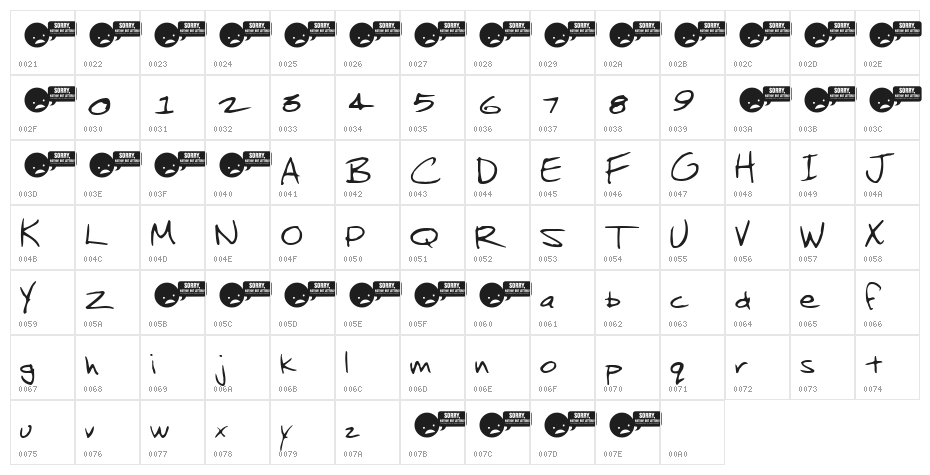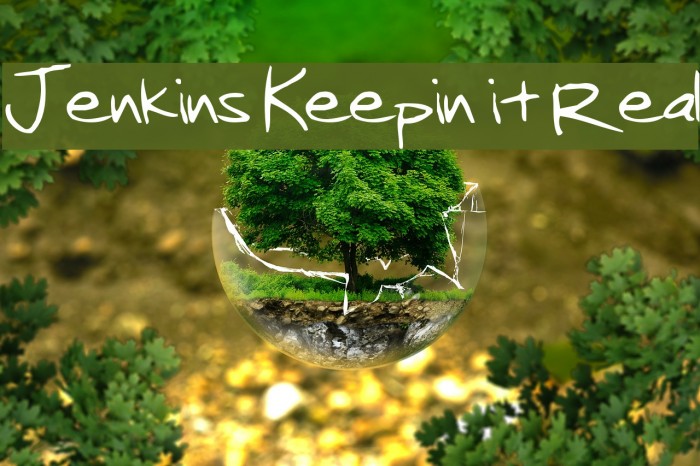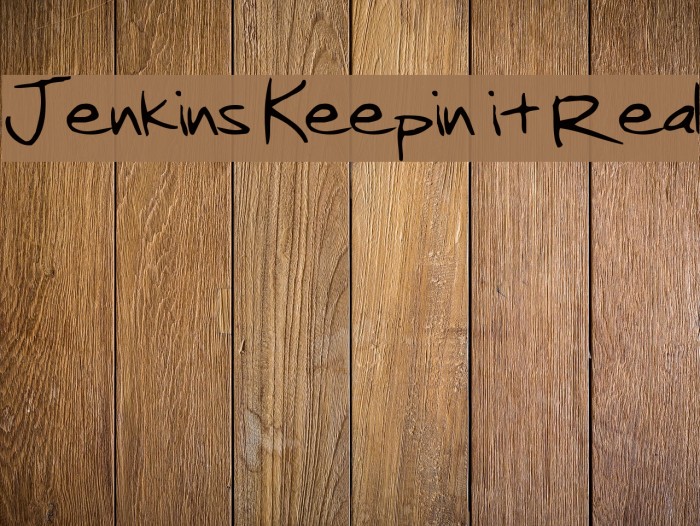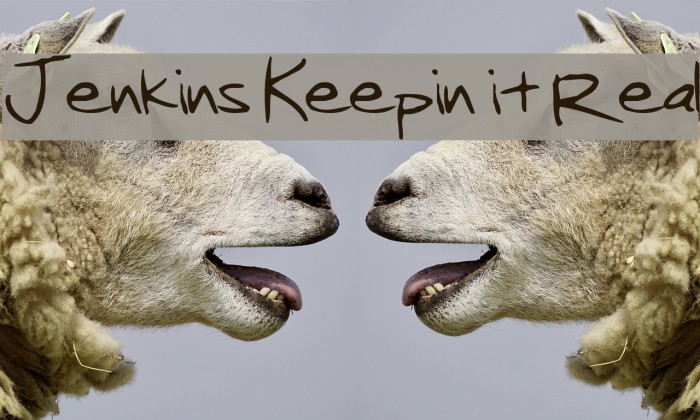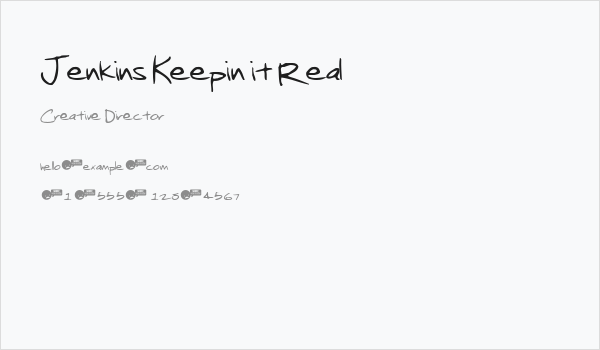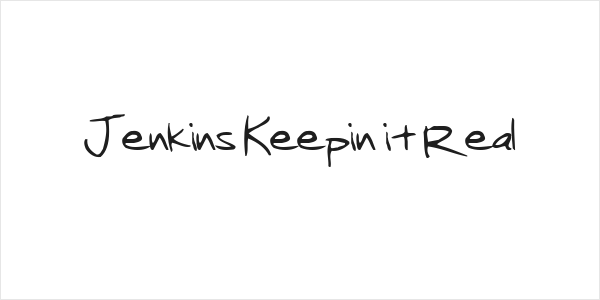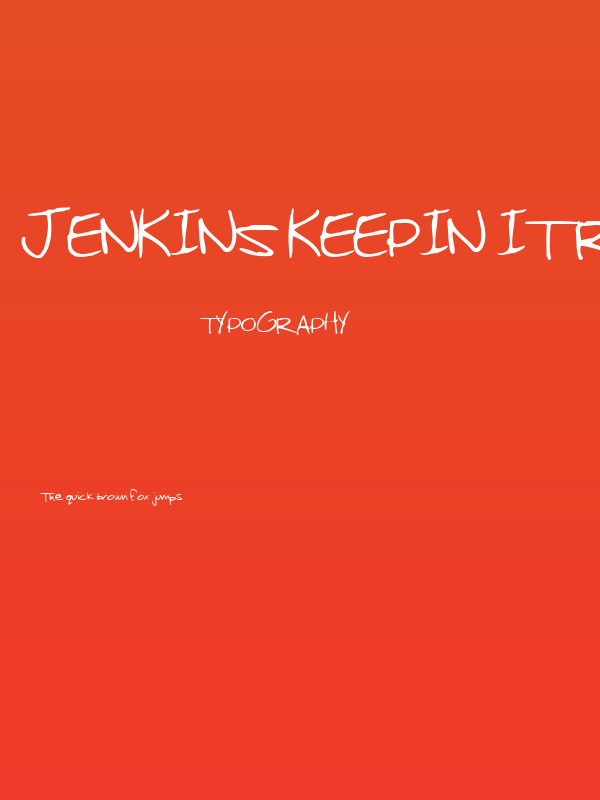
Jenkins Keepin it Real Font
Jenkins Keepin it Real Description
This font exudes a casual and playful vibe, reminiscent of handwritten notes with a touch of spontaneity. The letters are slightly slanted, giving a dynamic and energetic feel. Each character is crafted with a consistent stroke width, maintaining a uniform appearance throughout. The uppercase letters are bold and assertive, while the lowercase letters offer a more relaxed and approachable look. The numbers are clear and legible, matching the overall style of the alphabet. Special characters are included, maintaining the playful and informal aesthetic. This font is perfect for projects that require a personal touch, such as invitations, greeting cards, or creative branding.
| Use Case | Creative branding, Invitations, Personal notes |
| Proposed Projects | Ideal for invitations, greeting cards, creative branding, and personal notes. |